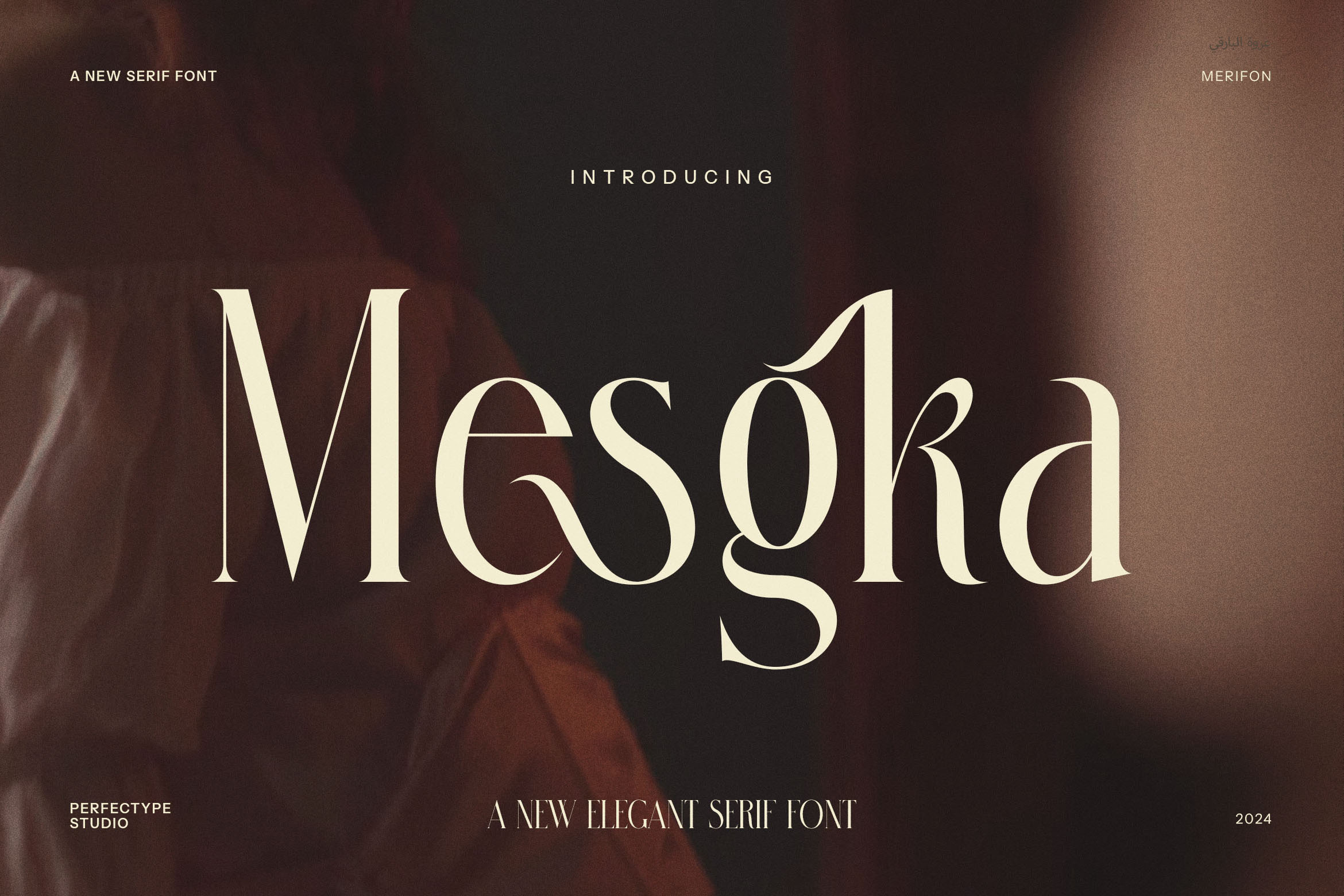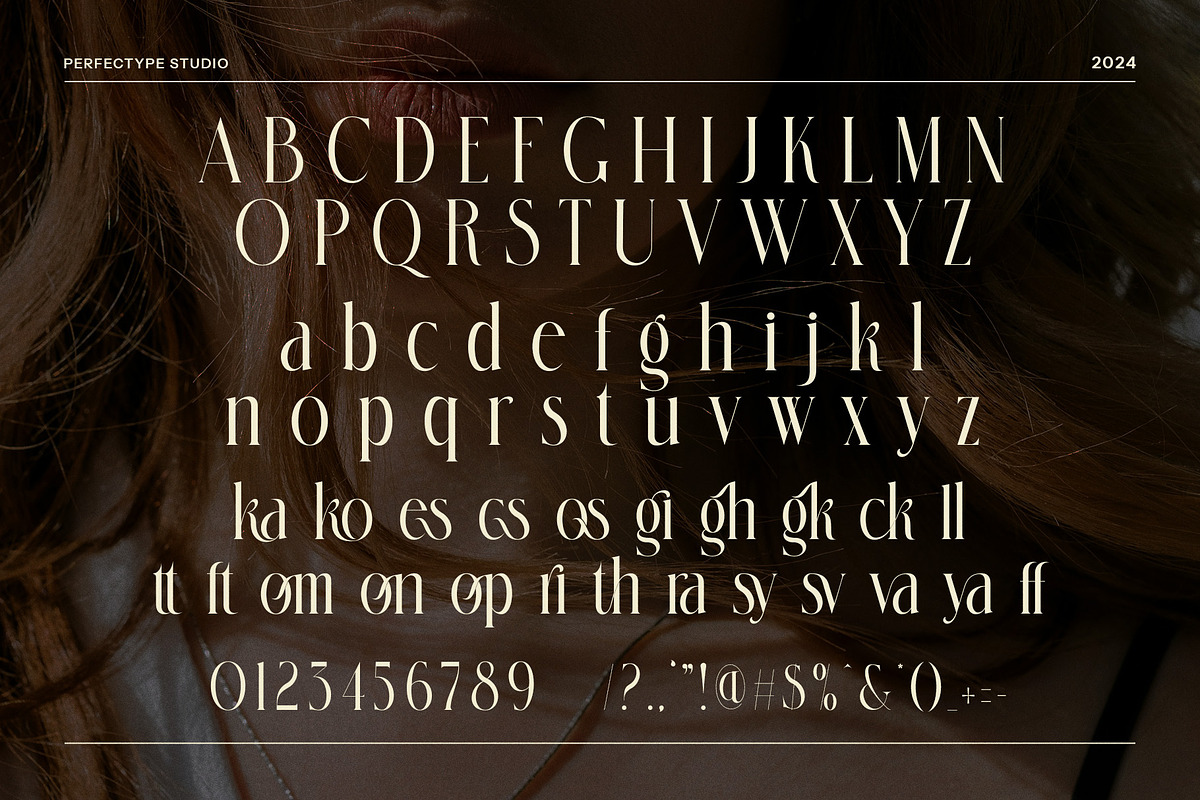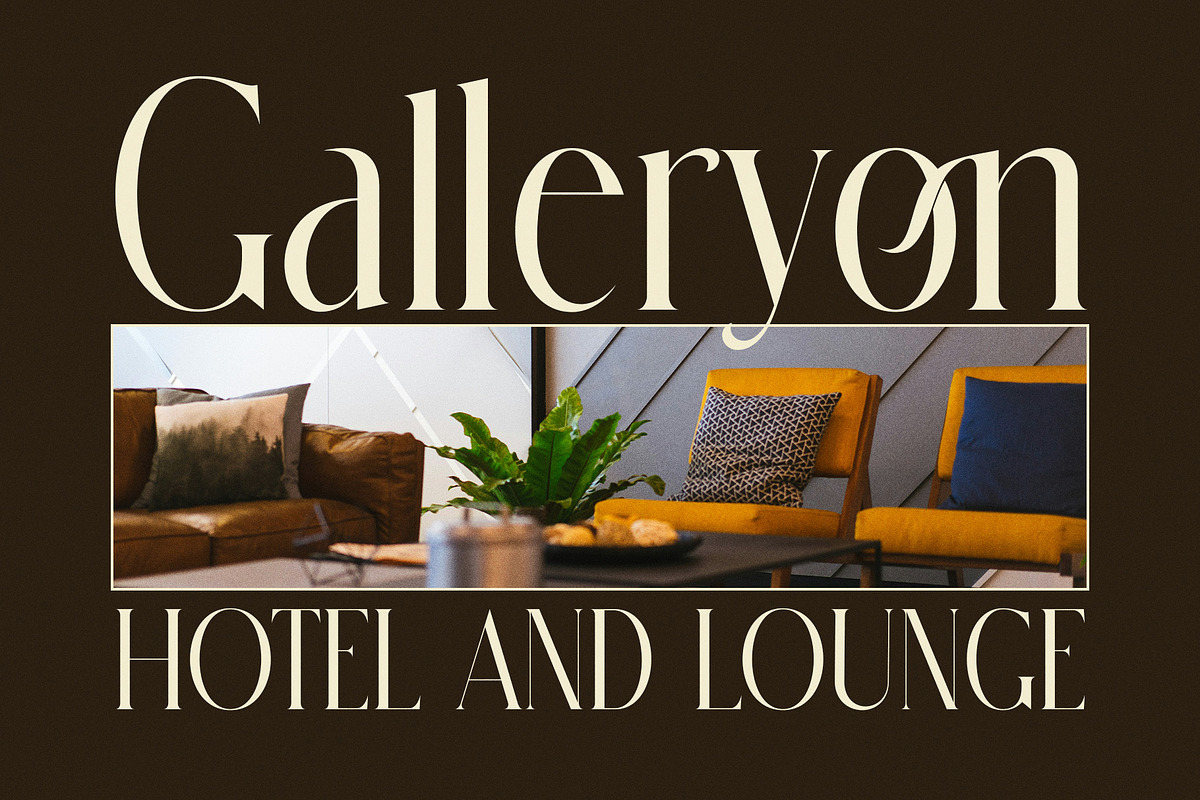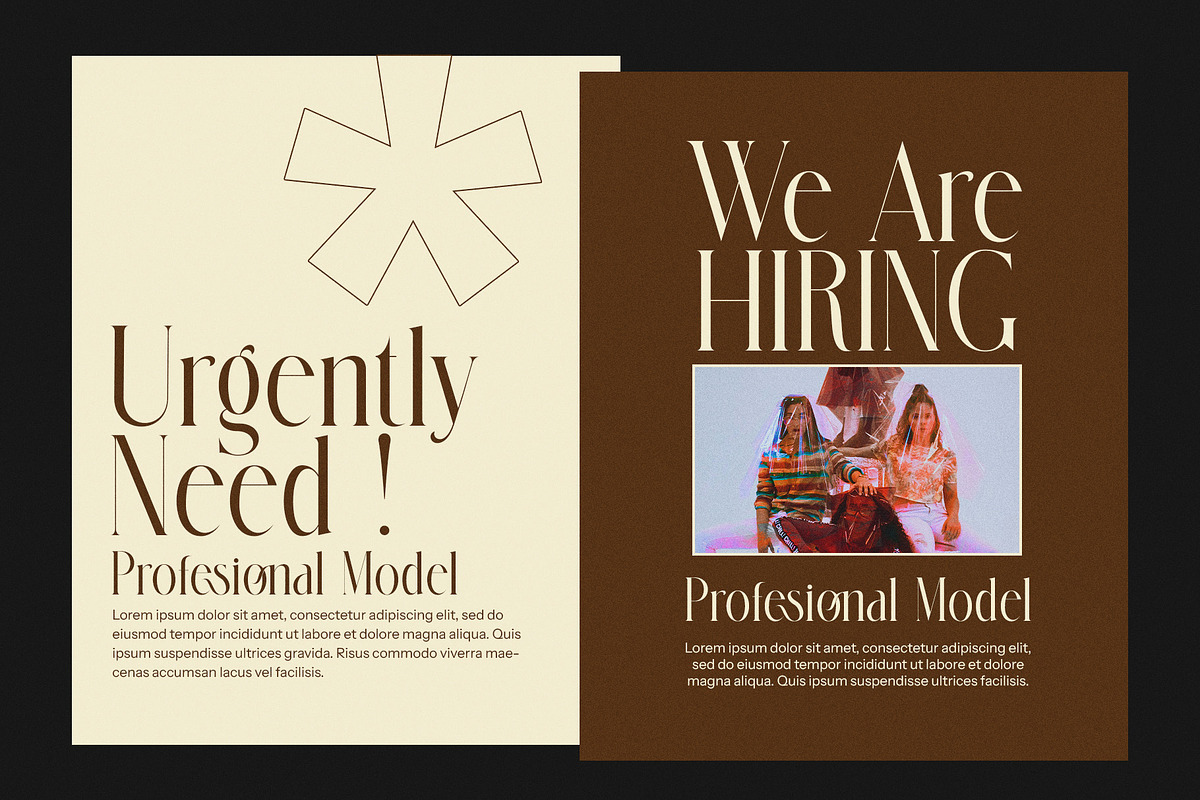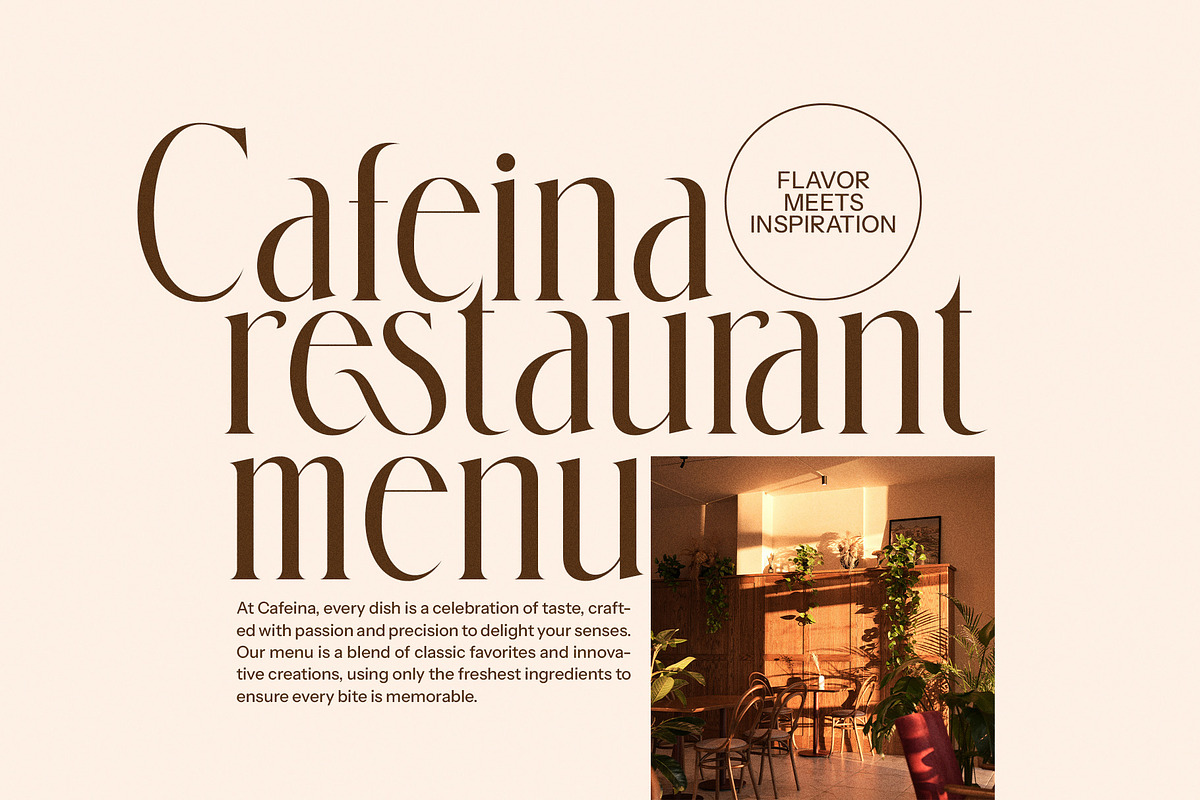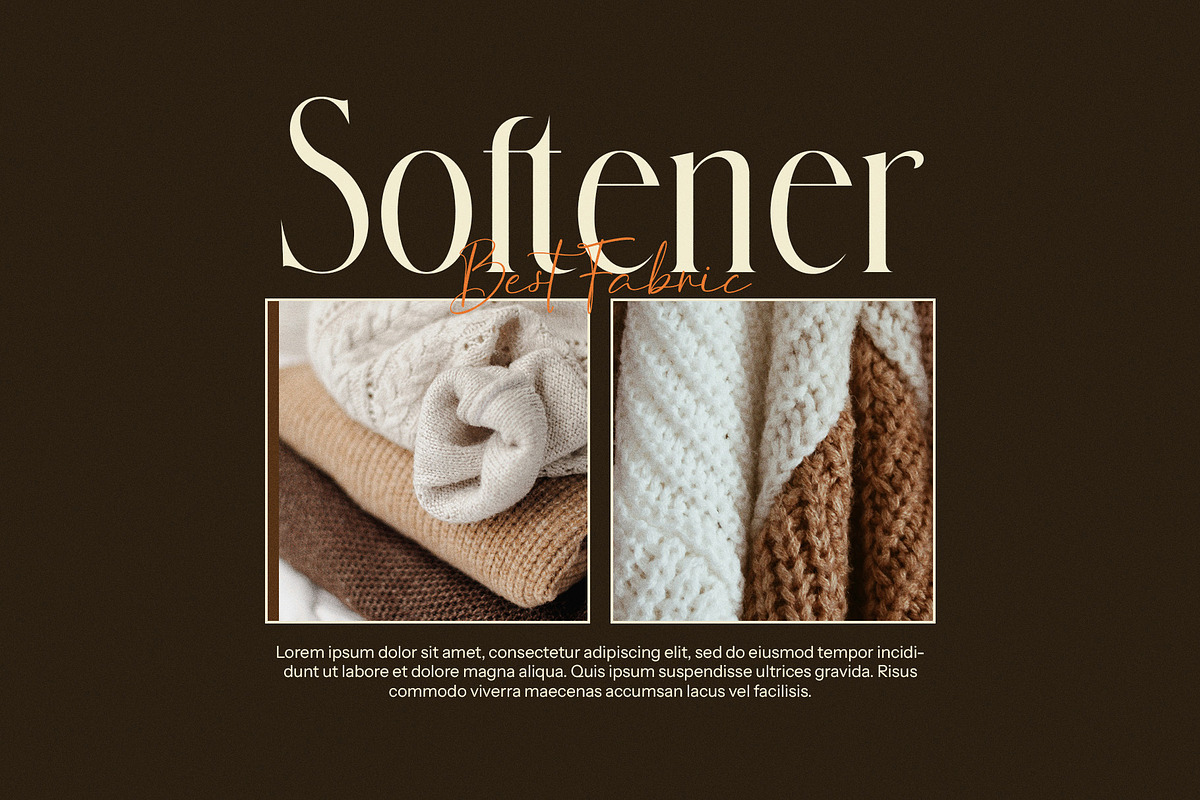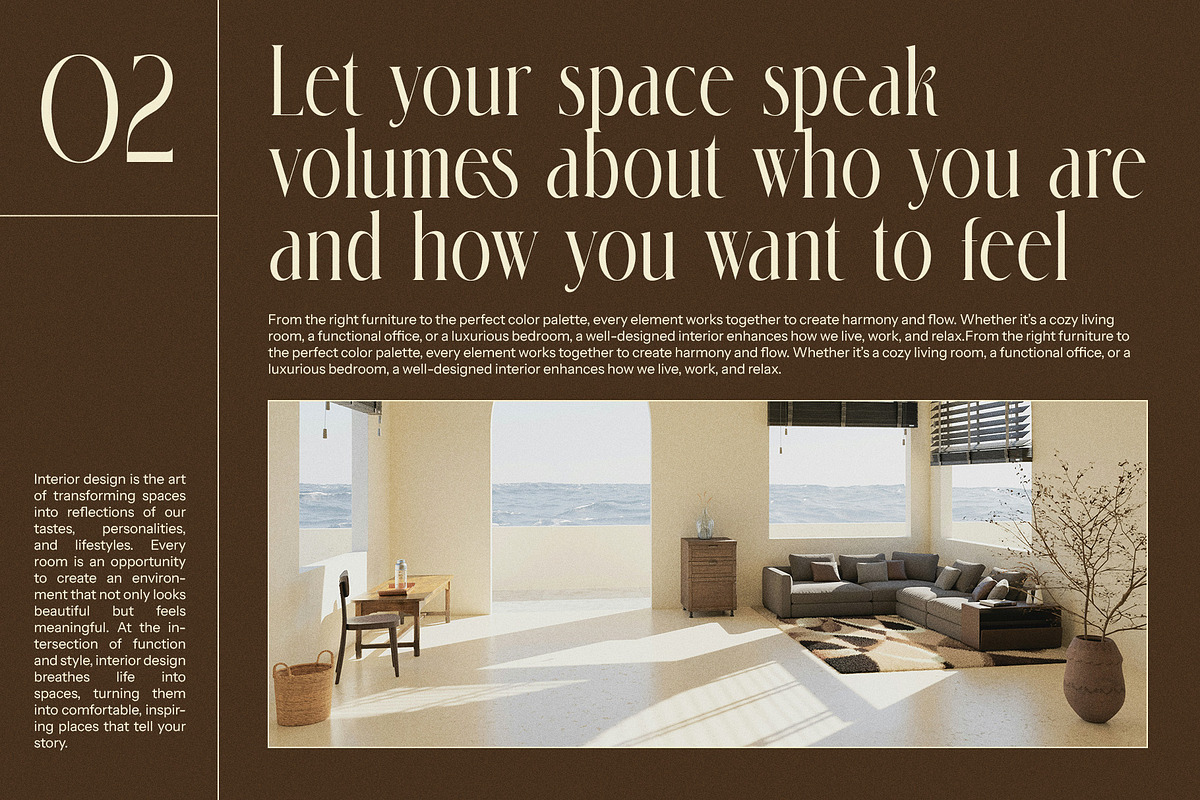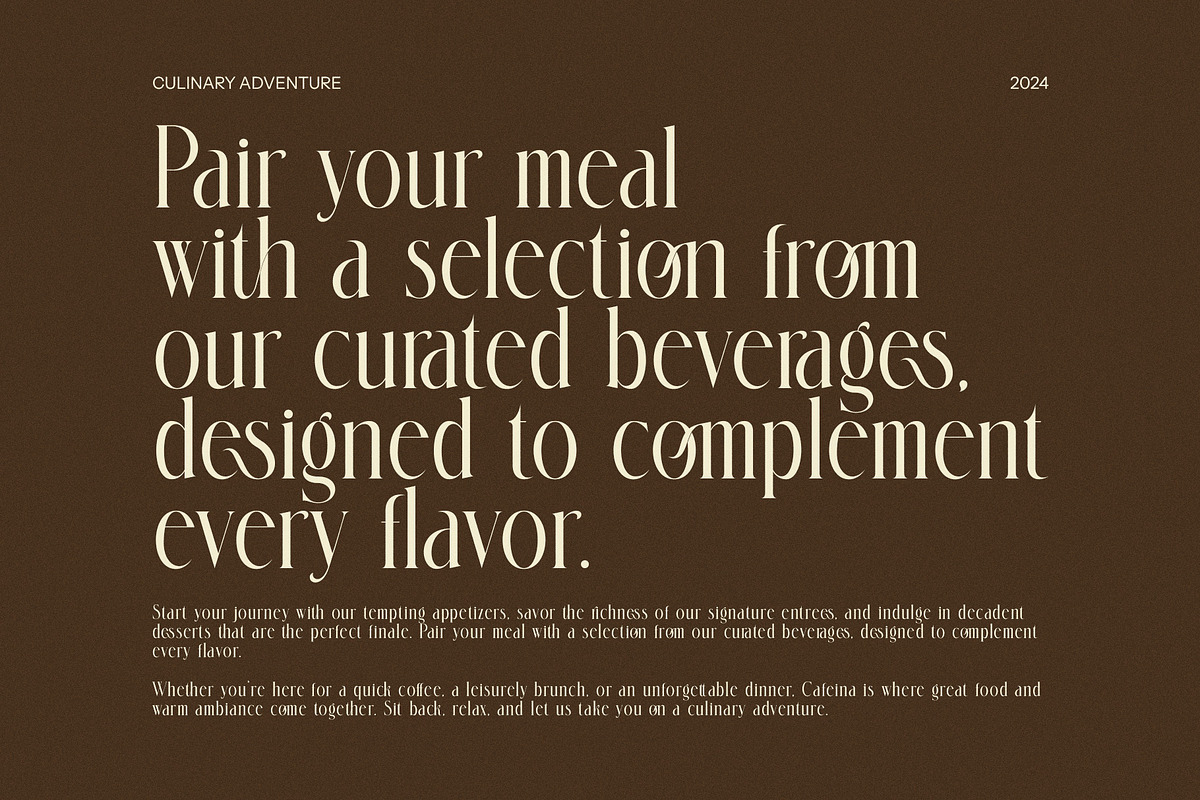
Mesgka Elegant Serif Font
Mesgka Elegant Serif Font is a striking and sophisticated typeface that effortlessly combines modernity with timeless elegance. Designed with a unique blend of classic serif features and contemporary styling, this font stands out with its clean lines, refined curves, and exceptional readability. Its distinctive shape makes it perfect for high-end branding, luxury logos, and editorial designs that demand attention.
Whether you're designing for upscale boutiques, premium products, or stylish websites, Mesgka adds a sense of class and professionalism to any project. Its versatility shines through in a variety of applications—be it printed advertisements, magazine layouts, or elegant product packaging. The font’s bold yet graceful character set is ideal for conveying both authority and elegance, making it a top choice for businesses and brands that want to leave a lasting impression.
Mesgka Elegant Serif Font is particularly well-suited for the fashion industry, luxury goods, and food brands seeking a modern twist on traditional serif fonts. Its clean structure and sophisticated flourishes allow for both large-scale typography and delicate detailing, providing a perfect balance between modern aesthetics and traditional serif charm.
If you're looking for a typeface that speaks volumes in style, sophistication, and modern flair, Mesgka is the perfect choice. Elevate your design with this beautiful, unique font that brings a touch of refinement to every project.